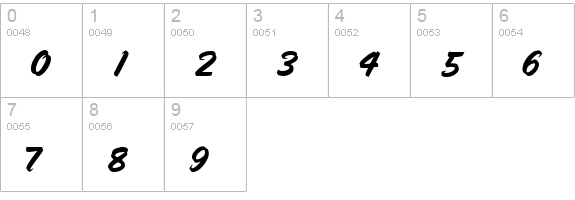
Speedline Regular Font Details
Speedline Regular is the standard, neutral variant in the Speedline typeface family \xE2\x80\x94 well suited to general body text, paragraphs, and standard typographic work.
Speedline Regular is a modern and stylish font that exudes a sense of speed and motion. With its sleek and streamlined design, this font is perfect for creating eye-catching headings, logos, and branding materials. The clean lines and sharp edges of Speedline Regular make it ideal for any project that requires a contemporary and dynamic look. One of the best things about Speedline Regular is that it is free to download. You can easily access this amazing font at FontsMarket.com, where it is readily available for anyone to use. Whether you are a professional designer or someone who simply loves experimenting with fonts, Speedline Regular is a great addition to your collection. The versatility of Speedline Regular is another reason to fall in love with this font. It can be used in a variety of design projects, including websites, advertisements, posters, and more. Its legibility and readability make it suitable for both print and digital media, ensuring that your message will be effectively communicated to your audience. Speedline Regular is a true gem in the world of fonts, combining style, functionality, and affordability. Its contemporary design, paired with its accessibility, make it a must-have for anyone looking to add a touch of modernity to their designs. So why wait? Head over to FontsMarket.com and download Speedline Regular for free today!